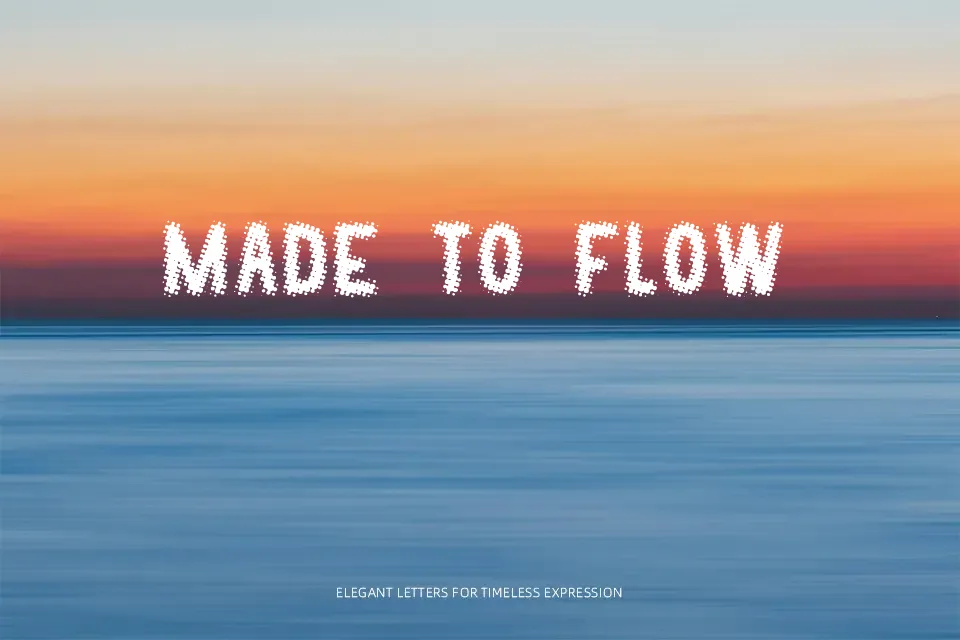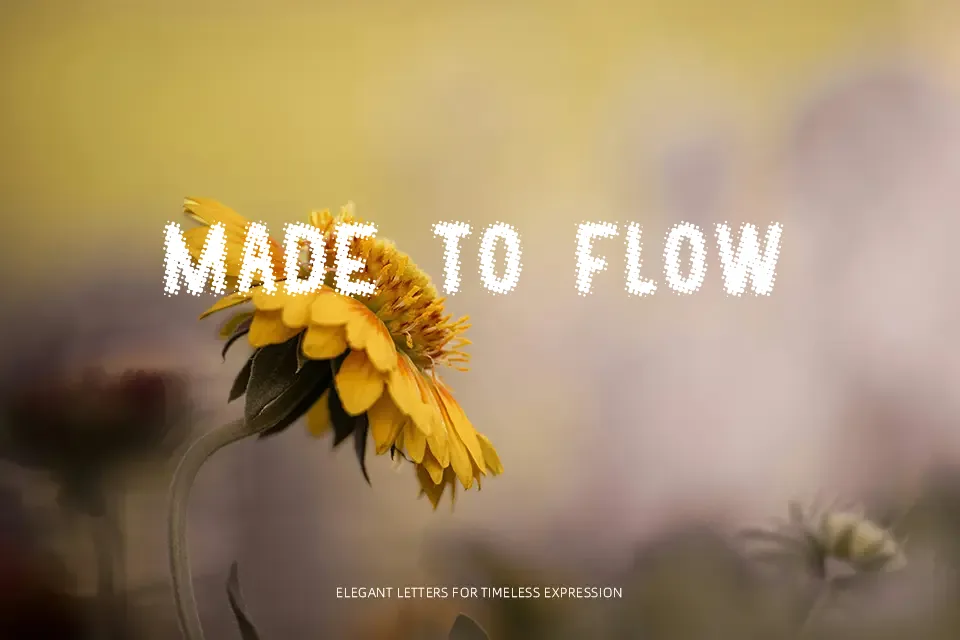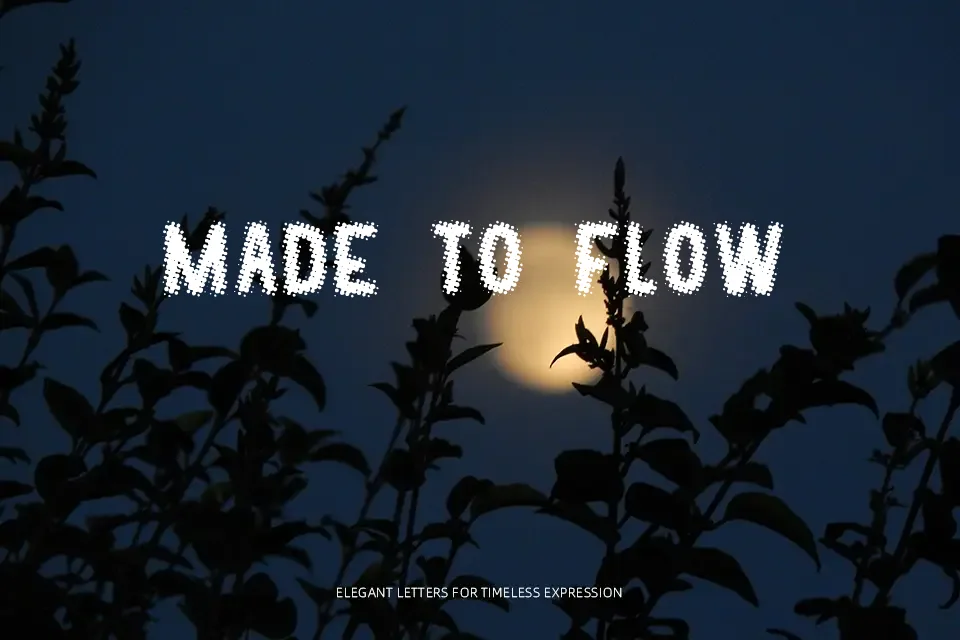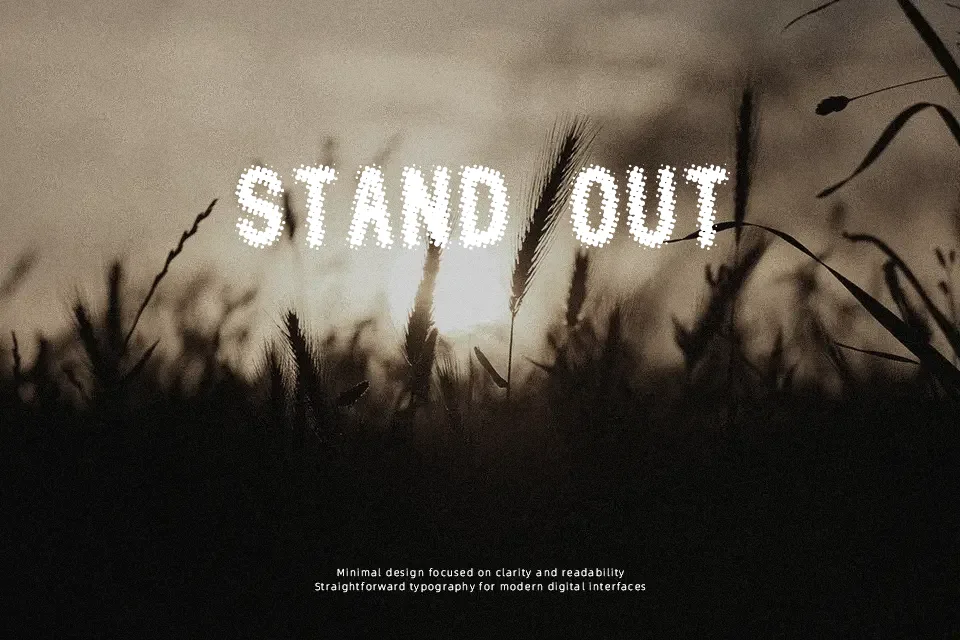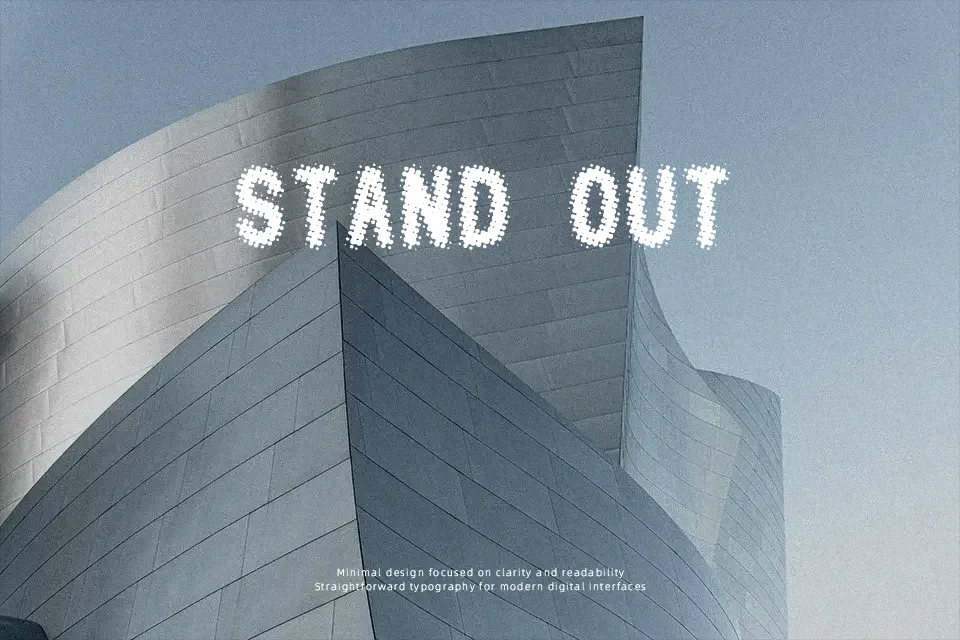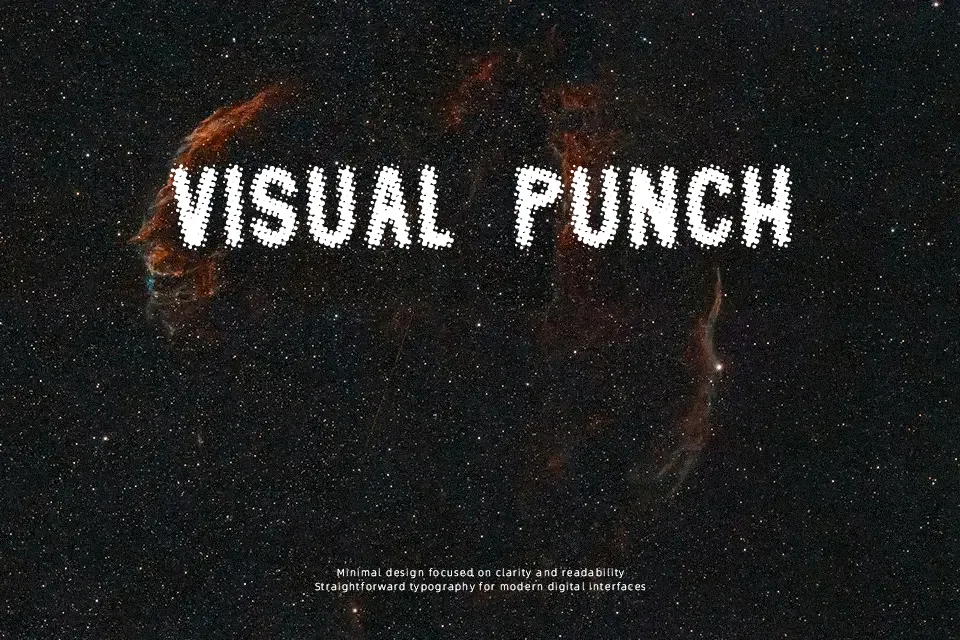
Klonp Font
Designed by Dibujado
There’s a loud, punchy attitude in Klonp Font that immediately pulls attention. Its letterforms lean toward a chunky, stylized structure with noticeable weight and tight spacing, giving it a dense and impactful presence. The design feels decorative and slightly experimental, making it more expressive than functional. It works well when used for short, high-impact text like gaming titles, poster headlines, or bold branding elements. However, readability drops quickly at smaller sizes or in longer paragraphs, so it’s not suited for body text. Use it when you want visual noise and character, not clarity or restraint.
gaming title graphics
poster headlines
bold social media banners
streetwear branding
small UI text
minimalist branding
Perfect for branding, gaming, and logo, with a bold and decorative style.